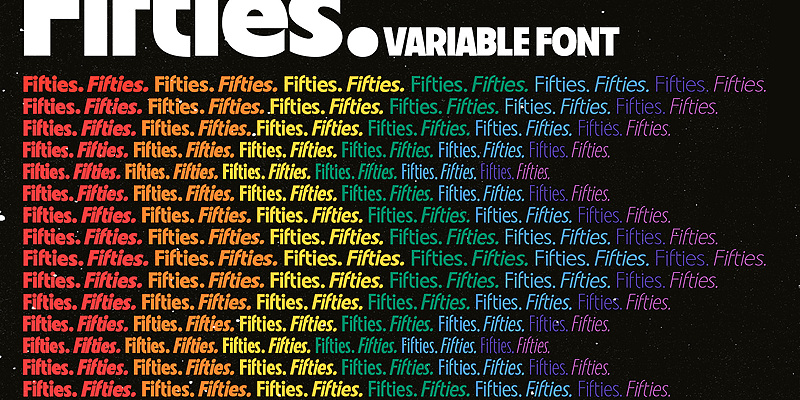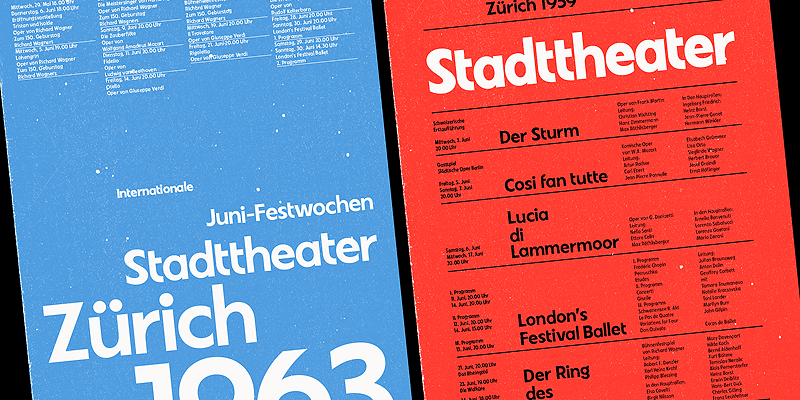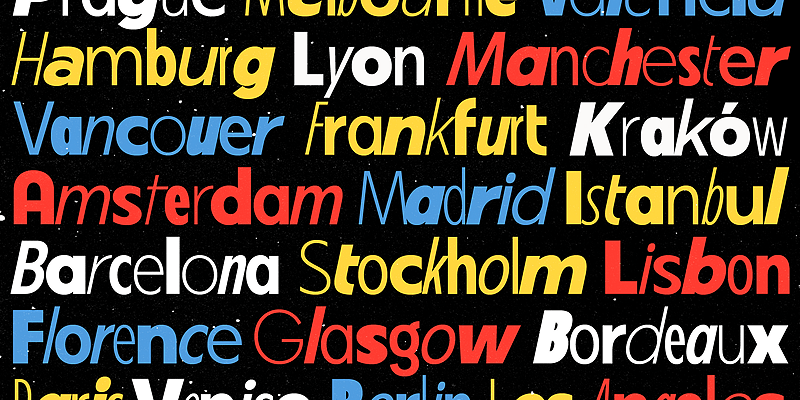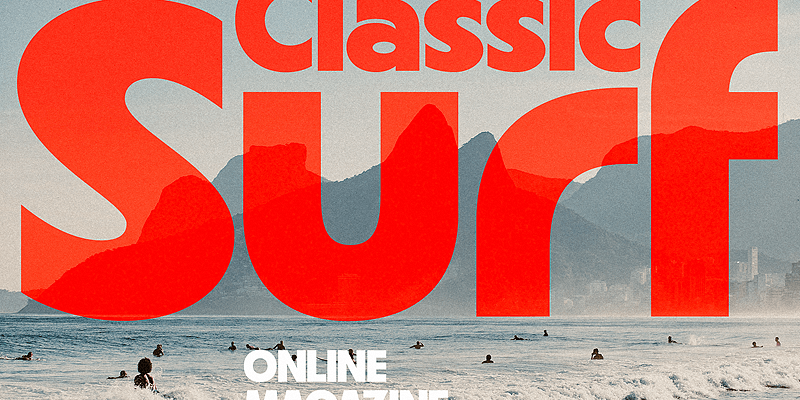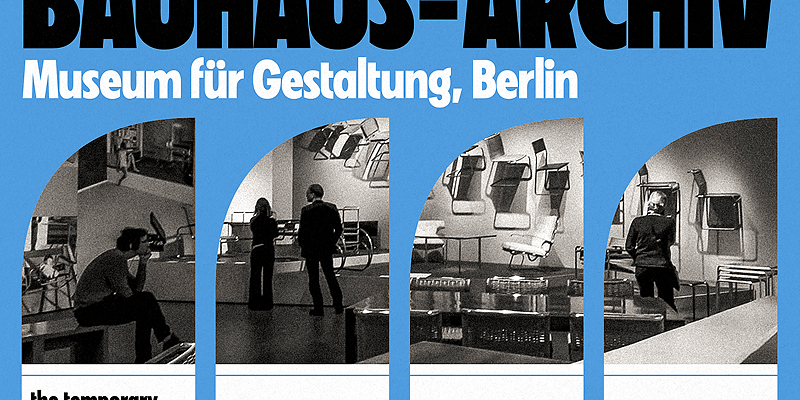
Fifties is a sans serif font family blending classic geometric structure with touches of humanist grotesque. Designed to bring mid-century modernism into contemporary design.
The looks available for creating in this flexible variable font family inclue a light, elegant look; strong, expressive impact; and sharp, dynamic energy. Ideal for theatre posters, party flyers, vintage t-shirts, web interfaces, movie titles, magazine headers, and infographics. Created for versatile, stylish typography across eras.